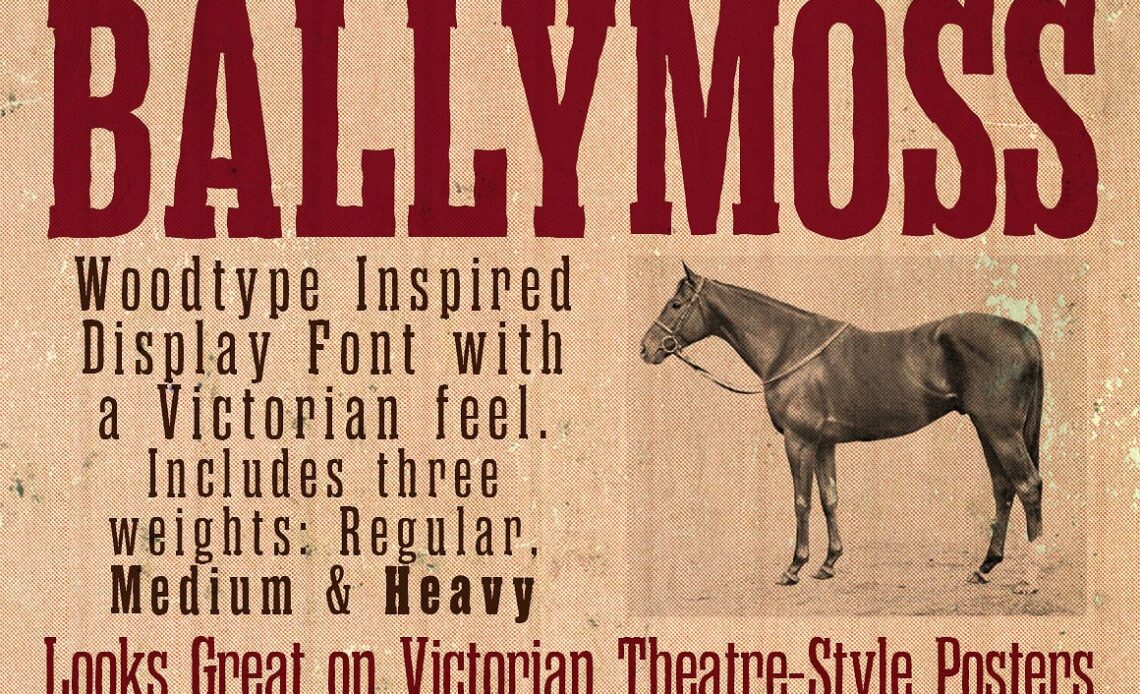
Welcome to the enchanting world of Ballymoss Font, a captivating display typeface inspired by the rustic charm of woodblock prints. This exquisite font family, meticulously crafted by the renowned K22 Foundry, invites you on an extraordinary typographic journey.
Ballymoss captivates with its three distinct weights: Regular, Medium, and Heavy. Each weight exudes its own unique character, empowering you to tailor your designs to perfection. With its comprehensive range of upper and lowercase characters, numerals, and punctuation, Ballymoss ensures that every word you type carries the weight of timeless elegance.
Imagine stepping back in time, to an era where the gentle caress of woodcarvers shaped stories onto paper. Ballymoss transports you to this realm of nostalgia, imbuing your designs with a touch of the past. Its meticulously distressed edges evoke the patina of well-loved artifacts, adding depth and intrigue to your creations.
Whether you're evoking the spirit of classic Americana or creating designs that whisper tales of distant lands, Ballymoss is the perfect companion. Its bold strokes and solid forms lend an air of authority to headlines, while its subtle nuances add a touch of whimsy to playful compositions.
Let Ballymoss guide you through the labyrinth of creative expression. Its versatility knows no bounds, effortlessly adapting to a myriad of design styles. From retro-inspired posters that evoke the nostalgia of bygone eras to contemporary branding that exudes a rustic charm, Ballymoss empowers you to weave stories that transcend time.
Unleash the storyteller within and let Ballymoss transform your designs into masterpieces. Its timeless allure and endless possibilities await your imagination. Embrace the enchanting world of Ballymoss Font and embark on a typographic adventure that will leave an enduring legacy.